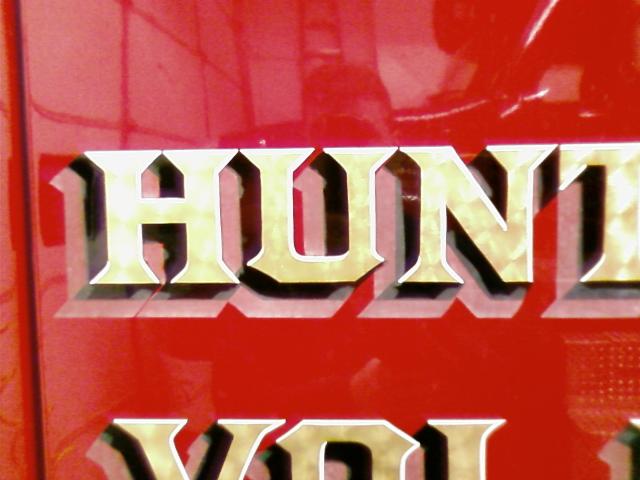
Help ID this Firetruck Font
Hi, the fire co, says this is vinyl, it looks like hand lettering to me but maybe someone here knows, I went through my 3700 fonts and have nothing.
I thought it might be from Atkinson, but it's not one of the FHA computer fonts I have.
I can check my real Atkinson.
It's cool, whatever it is!
looking for a good firetruck font
Any Ideas On A Good Font For A Older Firetruck That Is Being Remodeled.
Not just firehouse. LHF actually made a whole section of their site just for firetruck fonts.